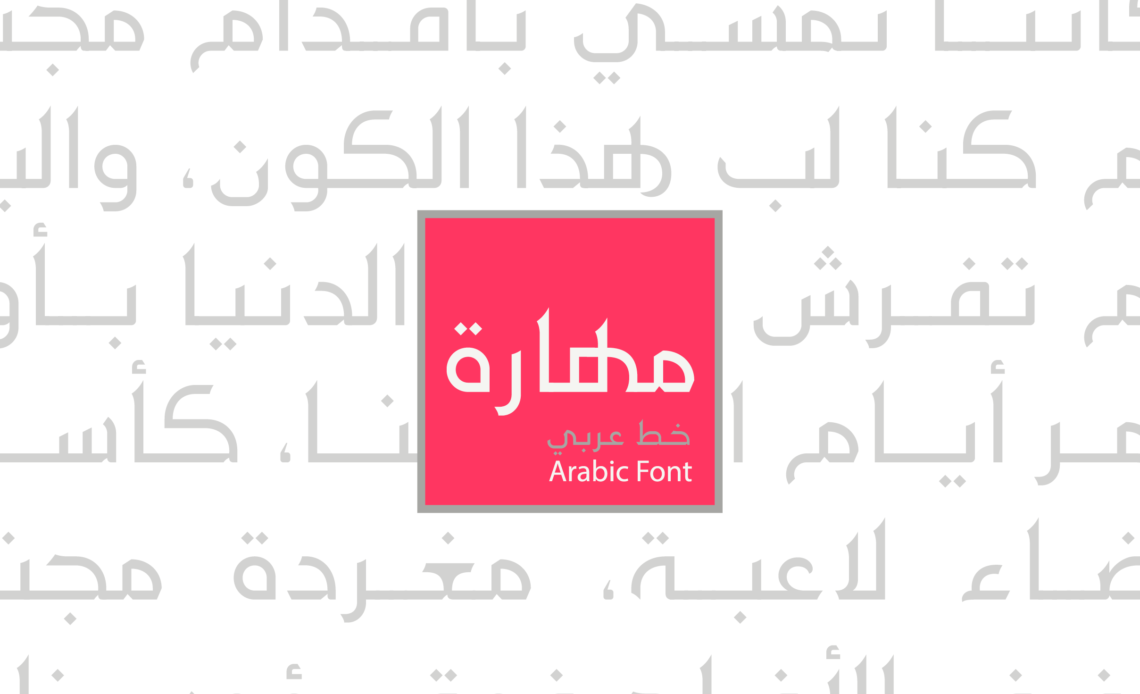
Behold the Maharah font, a breathtaking Arabic typeface that harmonizes authenticity with grace and modern flair. Designed by the ingenious Mostafa El Abasiry, Maharah embodies skill and mastery, capturing the essence of artistry in every stroke.
Embark on a typographic journey that transcends the ordinary with Maharah. Its meticulously crafted forms dance upon the digital canvas, captivating the viewer with their elegance and poise. Whether you're designing a captivating website or crafting an unforgettable print masterpiece, Maharah's versatility will leave you spellbound.
Prepare to be mesmerized by Maharah's regular and bold weights, each possessing a unique character that adapts seamlessly to a myriad of creative expressions. Experience the allure of the regular weight, its delicate curves and soft edges whispering stories of timeless beauty. Then, unleash the power of the bold weight, its bold strokes commanding attention, leaving an indelible mark on the hearts and minds of your audience.
Maharah's compatibility with web design and print opens up a world of endless possibilities. Weave it into the fabric of your digital creations, allowing your words to dance with an unmatched grace. Or, let it adorn the pages of your printed masterpieces, transforming them into tangible works of art.
Indulge in the splendor of Maharah, an Arabic font that ignites imagination and elevates your creative visions. Embrace the fusion of tradition and innovation, and let the strokes of this masterful font guide you towards typographic greatness.